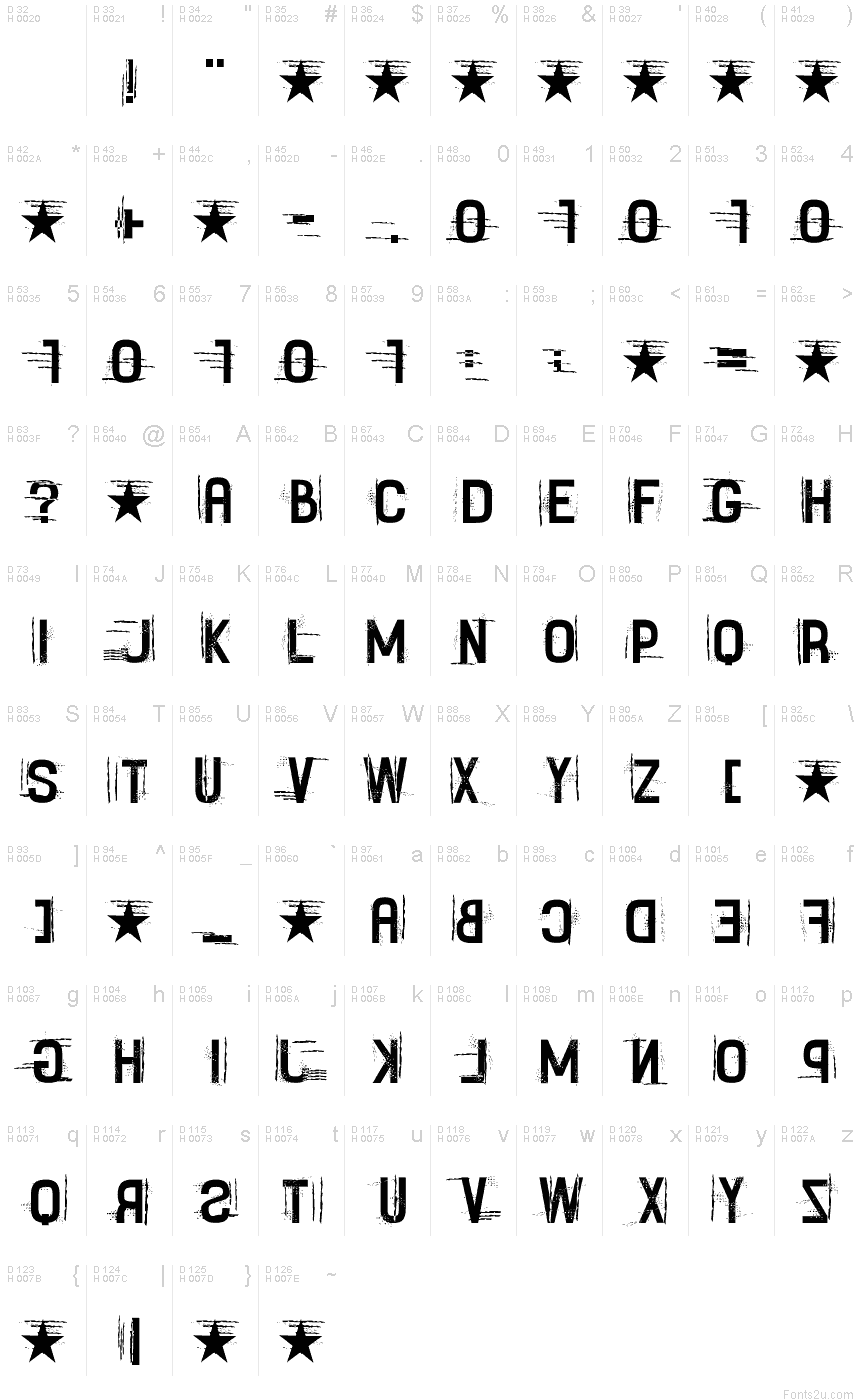
Fayettenam
Fayettenam font by Tommy Cary is a free eroded display font that looks like it’s been dragged through mud and shrapnel. Blocky, rigid letters are torn open with vertical claw marks and sprayed with gritty speckles, giving every word a raw, battle-scarred edge. It feels loud, distressed, and a little dangerous—perfect when you want your message to look like it survived something.
Using Fayettenam, headlines slam onto the page with a noisy, worn texture that grabs attention from across the room. This free font works beautifully for band posters, war or military-themed graphics, horror titles, extreme sports branding, game logos, and gritty protest flyers. Set it big and bold, then pair it with a clean, neutral sans serif for body text so the chaos stays where it belongs: in the headline.